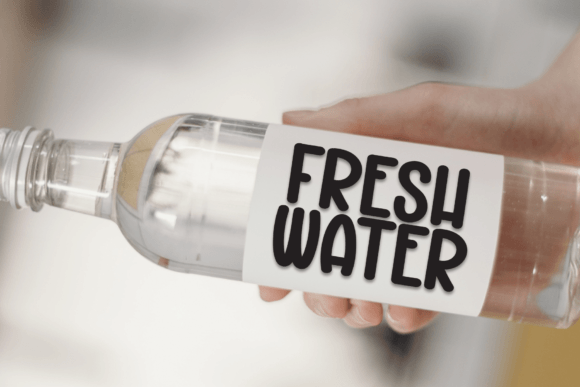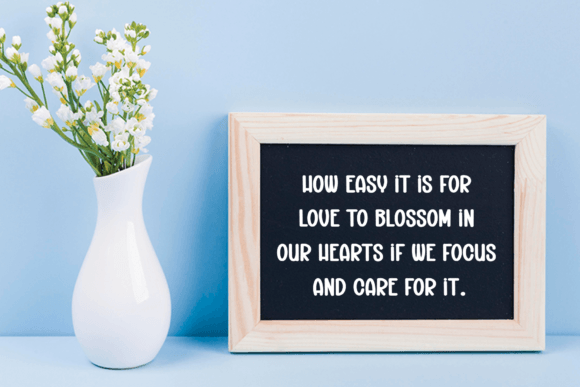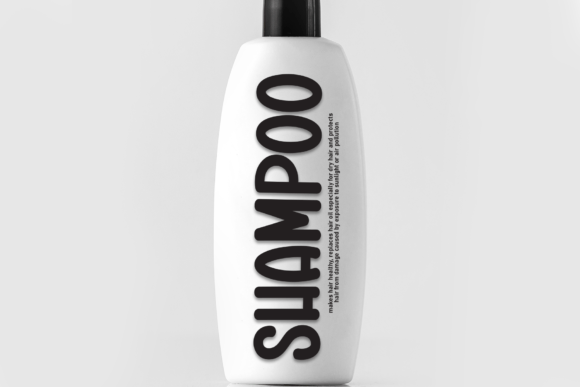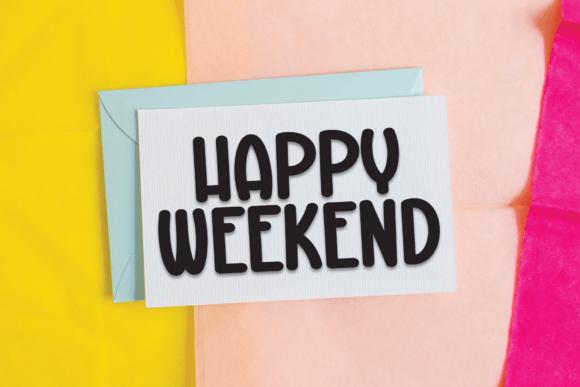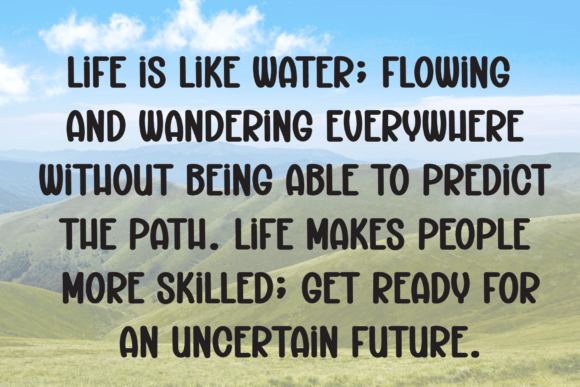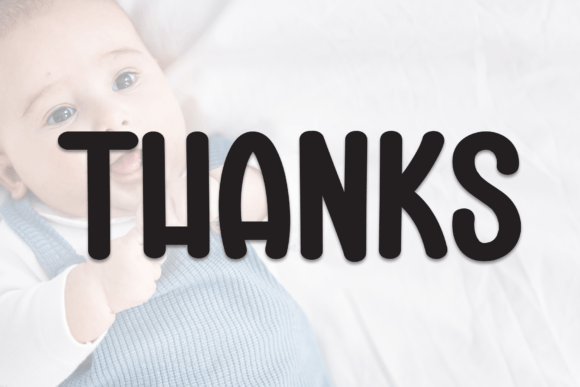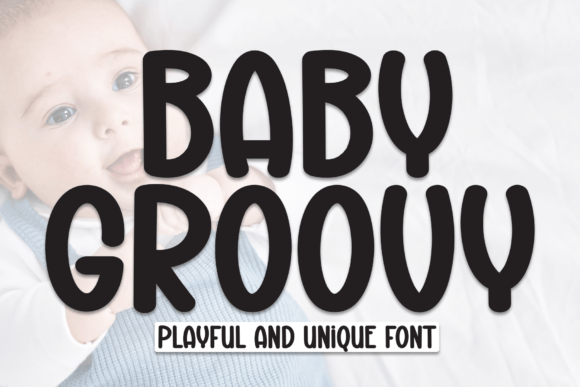
Get Ready to Groove: The Magic of the Baby Groovy Font
Remember that moment when you stumbled upon the perfect font, and your design instantly came to life? For many of us, that moment is a creative high like no other. It’s a spark that ignites our imagination, and we know we’re onto something special.
Meet Baby Groovy Font, a sweet and friendly handwritten font that’s about to become your new best friend. This charming font is designed to bring a touch of personality to your designs, making it the perfect fit for a wide range of projects. Whether you’re a graphic designer, a social media influencer, or a crafty DIY enthusiast, the Baby Groovy Font is sure to add a dash of whimsy and charm to your creations.
What makes the Baby Groovy Font truly valuable is its versatility and unique style. With its natural and effortless feel, the possibilities are endless, and the only limit is your imagination! So, get ready to groove with the Baby Groovy Font and unlock a world of creative possibilities.
Baby Groovy Font Key Features
- Font Family: Baby Groovy is a sans-serif font family designed to evoke a playful, nostalgic feel.
- Size: The font family includes a range of weights, from Light to Bold, with 10 font weights in total.
- Resolution: Baby Groovy is optimized for high-resolution displays, making it perfect for use in digital design projects.
- Unique Characteristics: The font’s distinctive rounded edges and subtle irregularities give it a hand-drawn feel, while its clean lines and simple shapes make it highly legible.
- Characters: Baby Groovy includes a comprehensive set of characters, including Latin, Cyrillic, and Greek alphabets, as well as a range of punctuation marks and symbols.
Design Review: Baby Groovy Font
Overall, I think the Baby Groovy Font is a delightful and playful font, perfect for creating a fun and whimsical atmosphere. ✨ Here are some aspects where it truly shines:
- Expressive and bubbly style, ideal for children’s books, nursery decorations, and other kid-friendly materials.
- Extensive character set, including a wide range of punctuation and special characters, making it a practical choice for various applications.
- Fun and creative possibilities, such as using it for party invitations, advertisements, or other promotional materials.
However, like any font, Baby Groovy Font also has its limitations: ⚠️
- May not be suitable for formal or professional documents, as it can come across as too playful or immature.
- Lack of sharpness and clarity at smaller font sizes, which can make it difficult to read.
- May not be as versatile as other fonts, as its unique style can be limiting in certain contexts.
In conclusion, I think the Baby Groovy Font is a wonderful addition to any designer’s toolkit, but it’s essential to use it judiciously and consider its limitations when choosing the right font for a project.
The Baby Groovy Font is ideal for creating playful and eye-catching designs, such as:
– Baby shower invitations
– Children’s party decorations
– Nursery decor and wall art
– Educational materials and worksheets
Tips for Getting the Most Out of Baby Groovy Font
To get the most out of Baby Groovy Font, try the following tips:
– Experiment with different font sizes and colors to create contrast and visual interest.
– Use the font in combination with other playful and whimsical elements, such as illustrations and graphics.
– Consider using the font in a bold or italic style to add
Alternatives to Baby Groovy Font
Great Vibes is a playful, handwritten font that exudes a carefree and lively atmosphere. It’s perfect for creating a fun and youthful vibe in branding, advertising, and packaging design.
Comparison: Great Vibes has a more vibrant and energetic feel compared to Baby Groovy Font, which is more subtle and laid-back. Great Vibes is ideal for projects that require a bold and attention-grabbing approach.